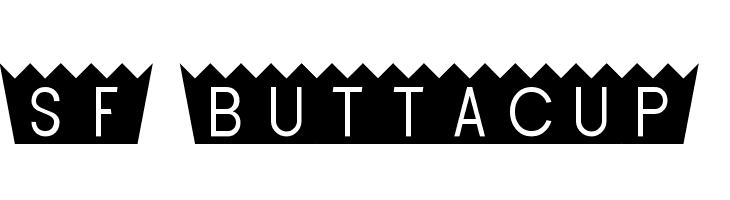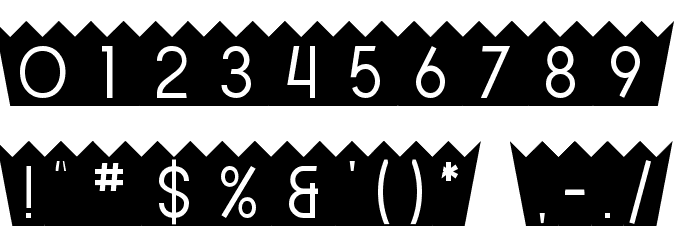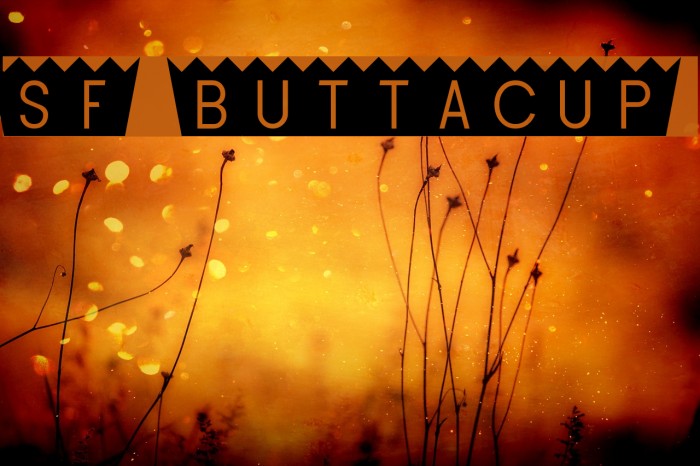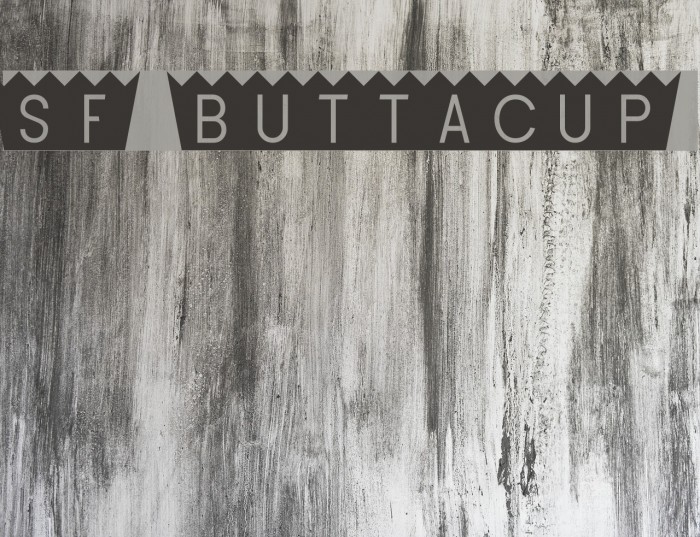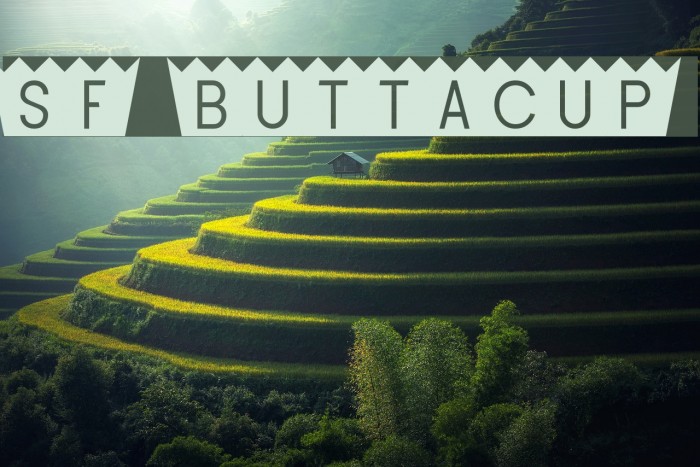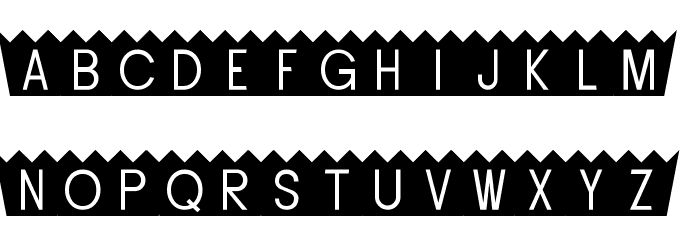
SF Buttacup Font
SF Buttacup Description
This font features a bold and modern design with a unique zigzag pattern at the top of each character, giving it a distinctive and playful appearance. The characters are uppercase and evenly spaced, with a clean and geometric style that makes them highly legible. The numbers and special characters maintain the same boldness and clarity, ensuring consistency across all elements. The font's overall aesthetic is both contemporary and eye-catching, making it suitable for a variety of creative applications.
| Proposed Projects | Ideal for branding, posters, and headlines where a bold and playful statement is needed. |